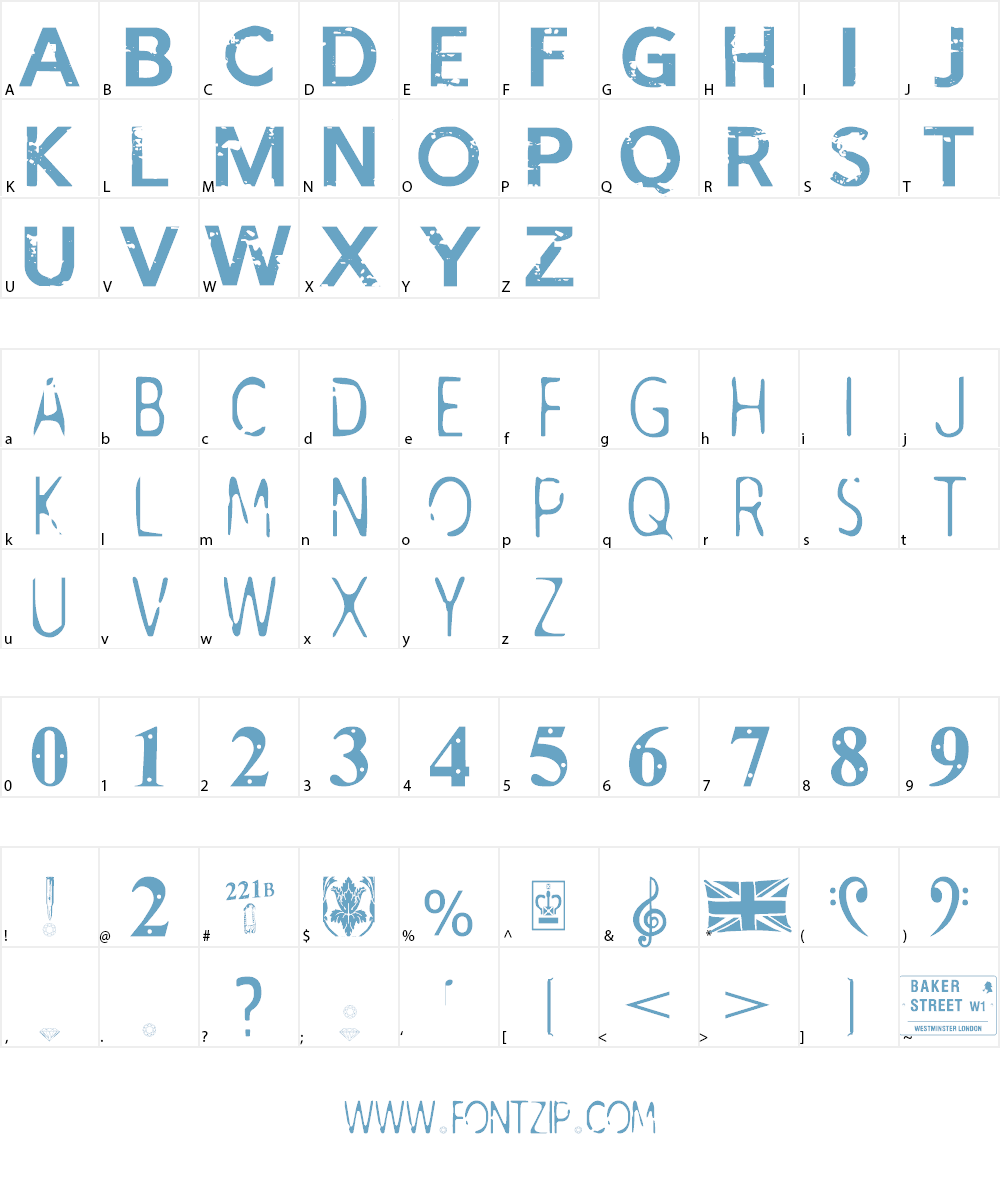
Created to pay homage to the excellent BBC series SHERLOCK.....The password on Idler's phone is S.H.E.R and, with the background, it reads "I AM SHER LOCKED" (I am Sherlocked) like "I'm into Sherlock" or "Sherlock conquered my heart". Sherlock cracks the password exactly because she said that her phone is her life and he deduces that it's her heart.